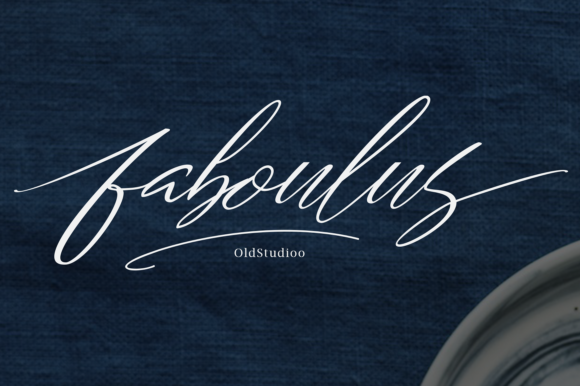
About Faboulus Font
The Faboulus is a modern script font with a hand brushed style. It has decorative characters and a dancing baseline.
It can be used for branding, business cards, stamps, quote posters and greeting cards, and don’t forget the wedding season! This would be gorgeous on save the date cards or invites.